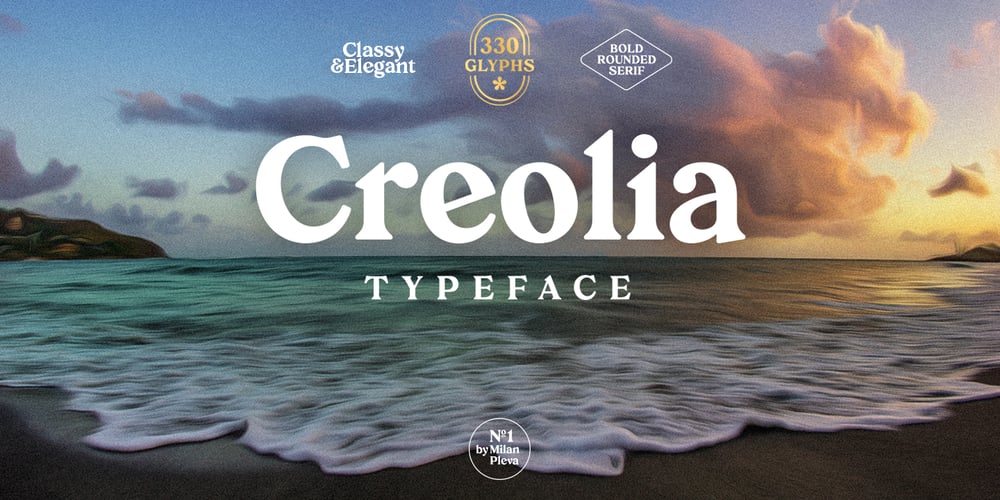
Creolia
Creolia font
Creolia Font Family was designed by Milan Pleva and published by Milan Pleva. Creolia contains 1 styles and family package options. Creolia is a bold rounded serif typeface in modern and classy style. OpenType features include old style figures and ligatures. Creolia is ideal for headlines, headers, logos, labels, packaging, postcards, presentations, magazines, invitations, etc.Features:Basic latin alphabet A-Z56 Ligatures & Alternates112 Accented charactersNumbers, Punctuation, Currency, Symbols, Math symbols & DiacriticsOld style figuresEnjoy Creolia!